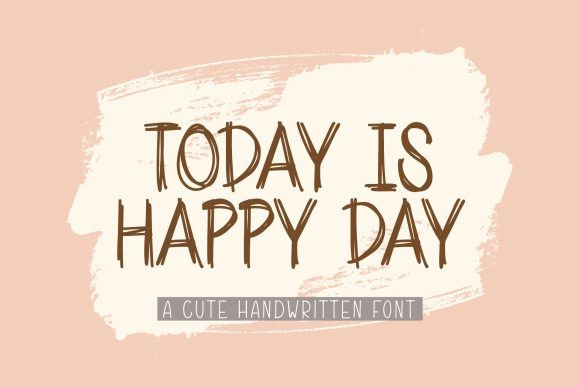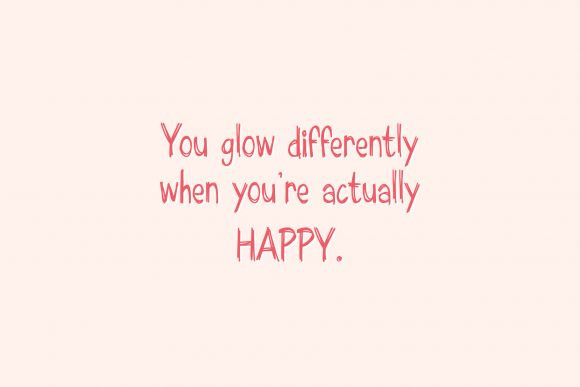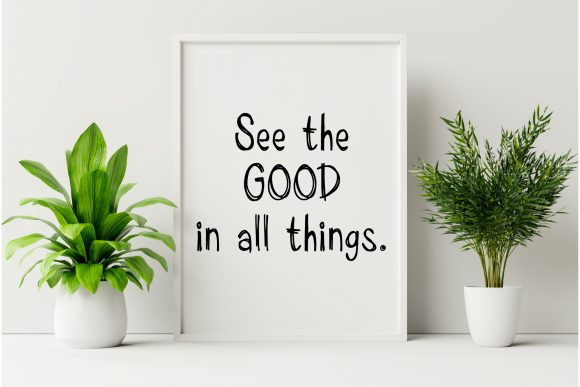
Today is Happy Day Font
Today Is Happy Day is a sweet and friendly handwritten font. Its natural and unique style makes it incredibly fitting to a large pool of designs. The only limit is your imagination!